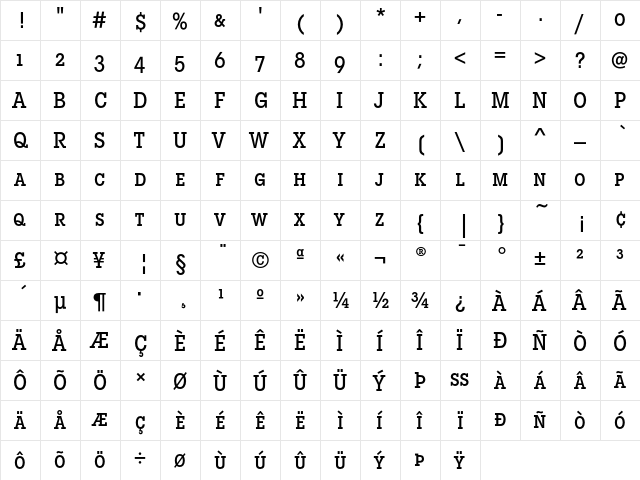
LubalinGraphEF MedCondSC
Design Context for LubalinGraphEF Typeface
LubalinGraphEF takes a measured approach to typography — its balanced proportions and neutral character make it a reliable workhorse for both digital and print work. The condensed width makes it efficient for tight spaces without sacrificing legibility.